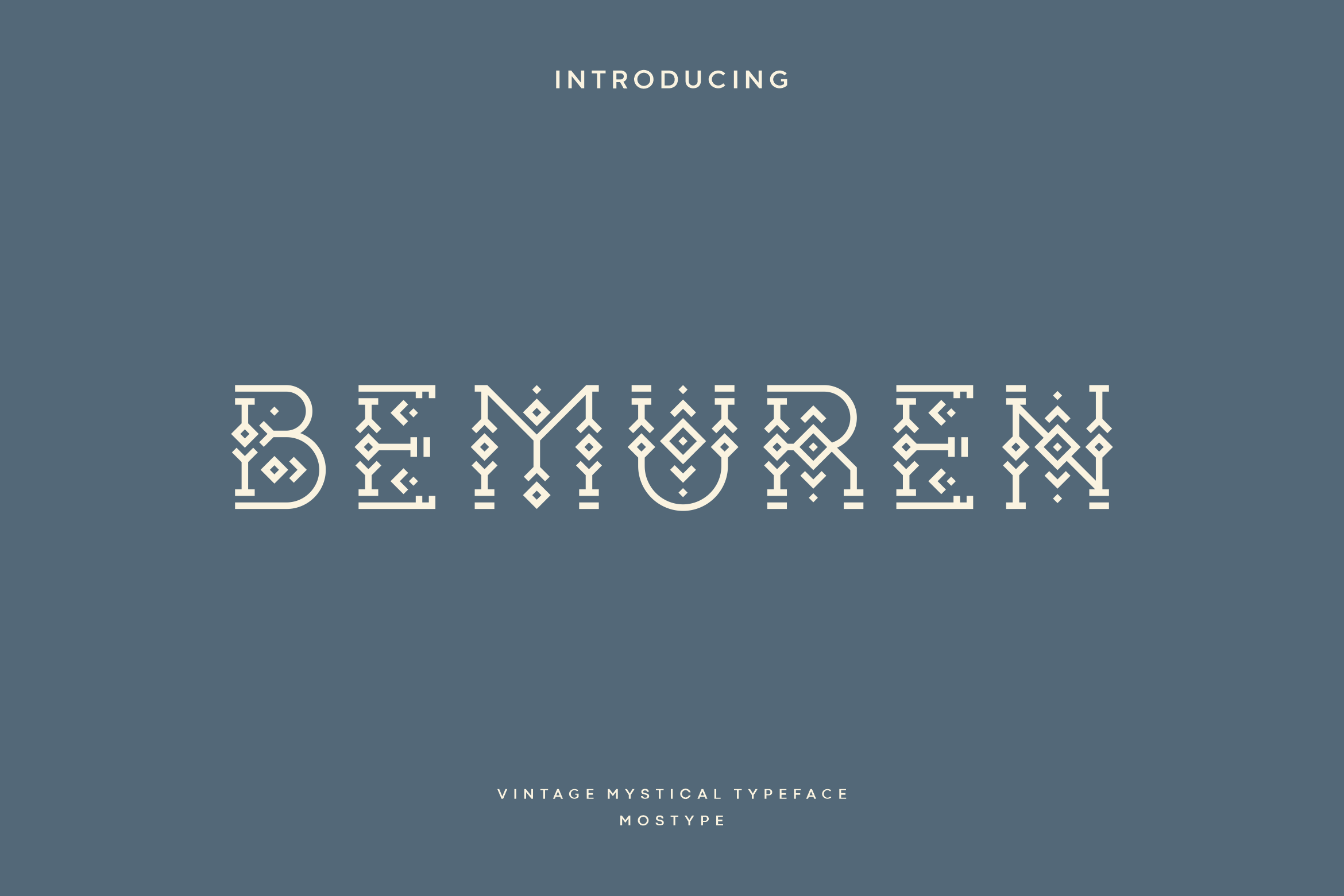
Bemuren - Vintage Mystical Typeface
Bemuren is a vintage font in a minimalist all-caps display, this original look will appeal to a wide variety of craft ideas, from logo, brochure, magazine, letterhead, title and many other type of designs. The hippie-inspired a boho theme is perfect for complementing hipsters and bohemian designs, the nordic feel is also evident in this font.